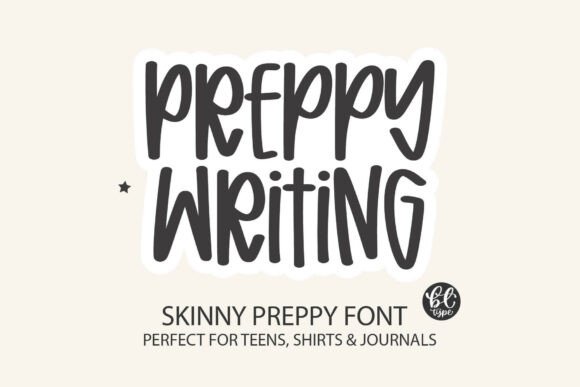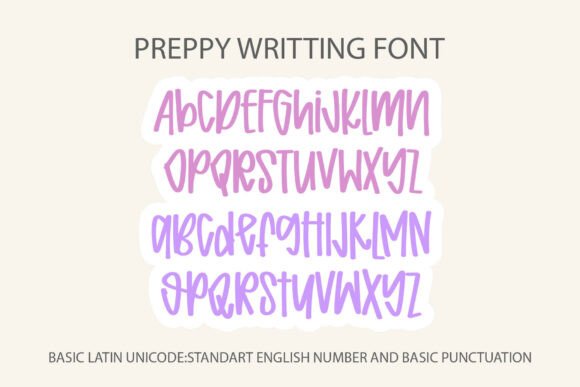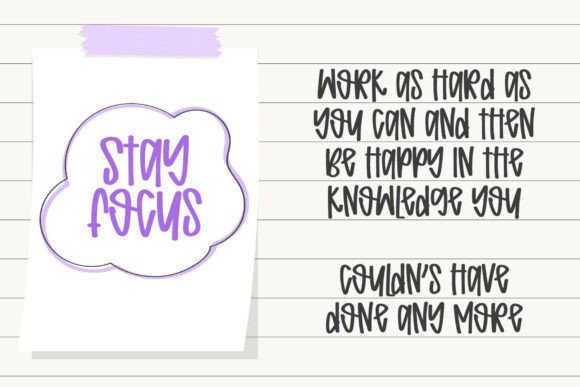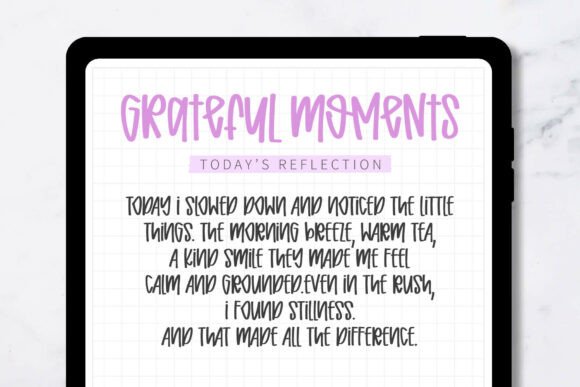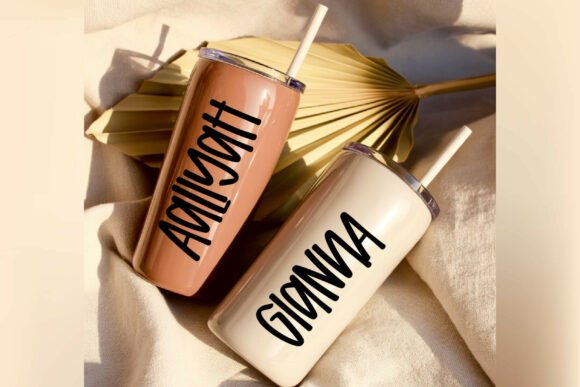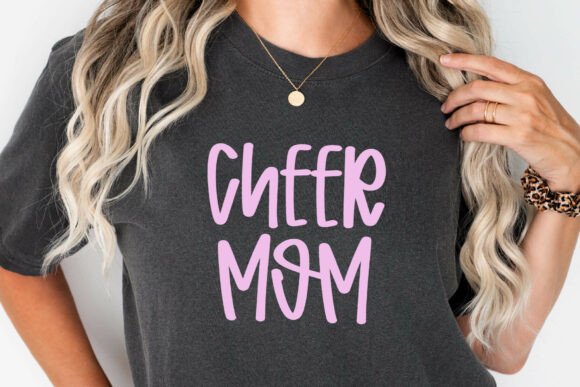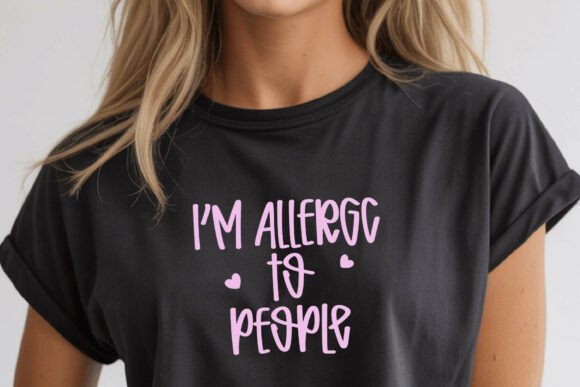
Preppy Writing Font
Preppy Writing is a tall, skinny handwritten font with a quirky prep-school twist.
Its bubbly yet structured style gives off a trendy, teen-approved vibe—perfect for t-shirts, journal headers, sticker designs, school merch, and planner pages. The clean lines and consistent spacing keep it playful but polished. It’s legible at small sizes and ideal for quotes, social content, and lifestyle products.
This font brings a fun, confident aesthetic to everything from classroom designs to digital branding.